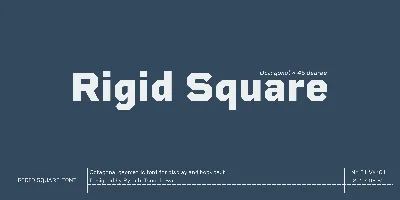
Rigid Square Font
Rigid Square Font is perfect for industrial manufacturing branding, construction company logos, mechanical engineering firms, structural steel fabrication signage, precision machinery advertising, technical equipment documentation, architectural blueprint presentations, heavy-duty construction materials, systematic quality control displays, and robust industrial product catalogs. Its structured geometric character makes it ideal for projects requiring engineering precision and industrial strength authenticity.
What makes Rigid Square Font exciting is its commanding embodiment of engineering precision and structural integrity with geometric letterforms and rigid characteristics that capture the essence of industrial strength and systematic construction excellence. The font features perfect square proportions, angular stroke patterns, and systematic character construction that create authentic industrial atmosphere and technical appeal. Its structured personality brings reliability and precision to contemporary designs while maintaining the clarity essential for technical communications and engineering presentations. The carefully crafted geometric elements ensure visual stability while preserving the distinctive character that embodies the essence of structural engineering and industrial excellence.
Rigid Square Font comes in multiple structural variations including Light, Regular, Medium, Bold, and Industrial styles. Each family member maintains the distinctive geometric character while offering comprehensive flexibility for technical typography and industrial brand system development. The complete font family includes alternate characters, technical symbols, and structural decorative elements that provide extensive tools for creating immersive industrial design experiences and authentic engineering brand storytelling.
Whether you're developing industrial brands, engineering companies, or technical construction projects, Rigid Square Font provides the structural precision needed to communicate with technical audiences and engineering professionals who appreciate systematic design and industrial reliability. The font's geometric appeal resonates with engineers, architects, and industrial designers seeking authentic technical credibility and structural sophistication. Its comprehensive character set includes engineering symbols and industrial marks, making it perfect for creating complete technical brand systems and memorable engineering storytelling across diverse industrial applications and precision-focused design projects that celebrate structural integrity and engineering excellence.